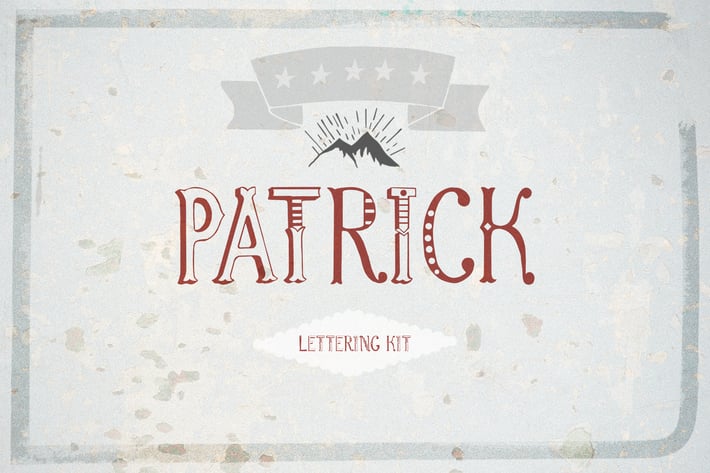
Patrick font & Lettering Kit
This font is was created to generate lettering. The package contains an additional 1 file EPS10 205 graphic elements for creating illustrations.